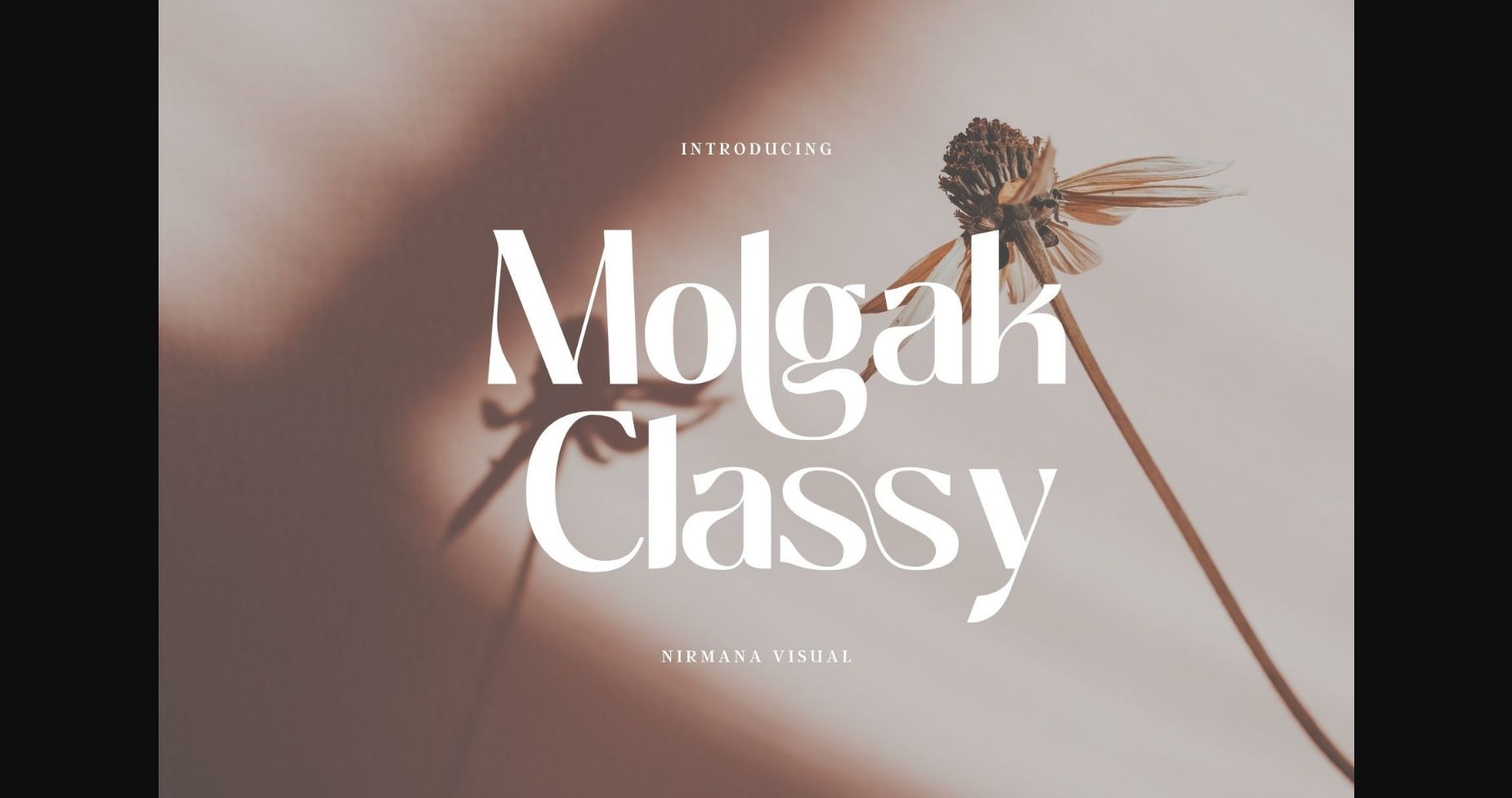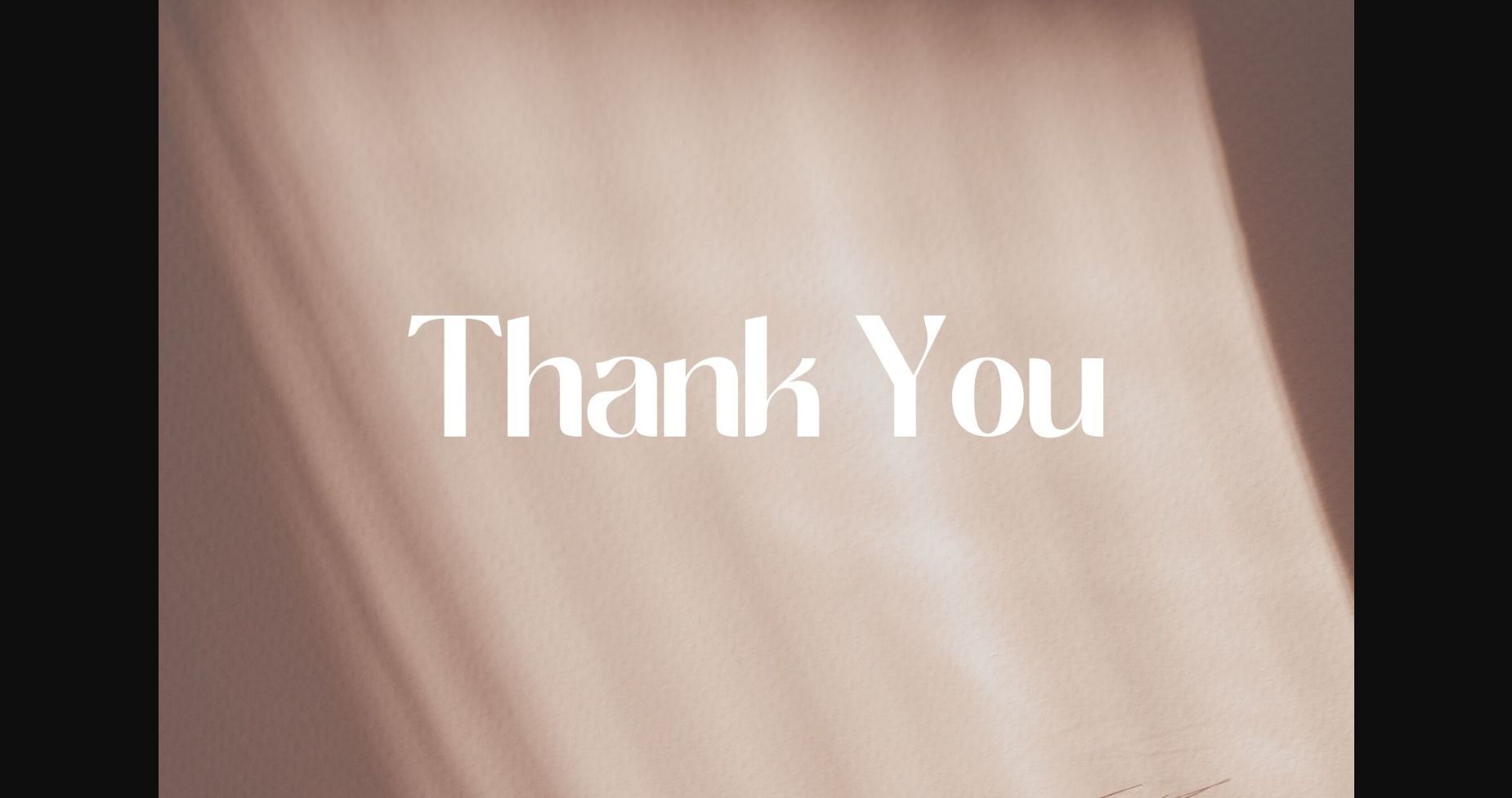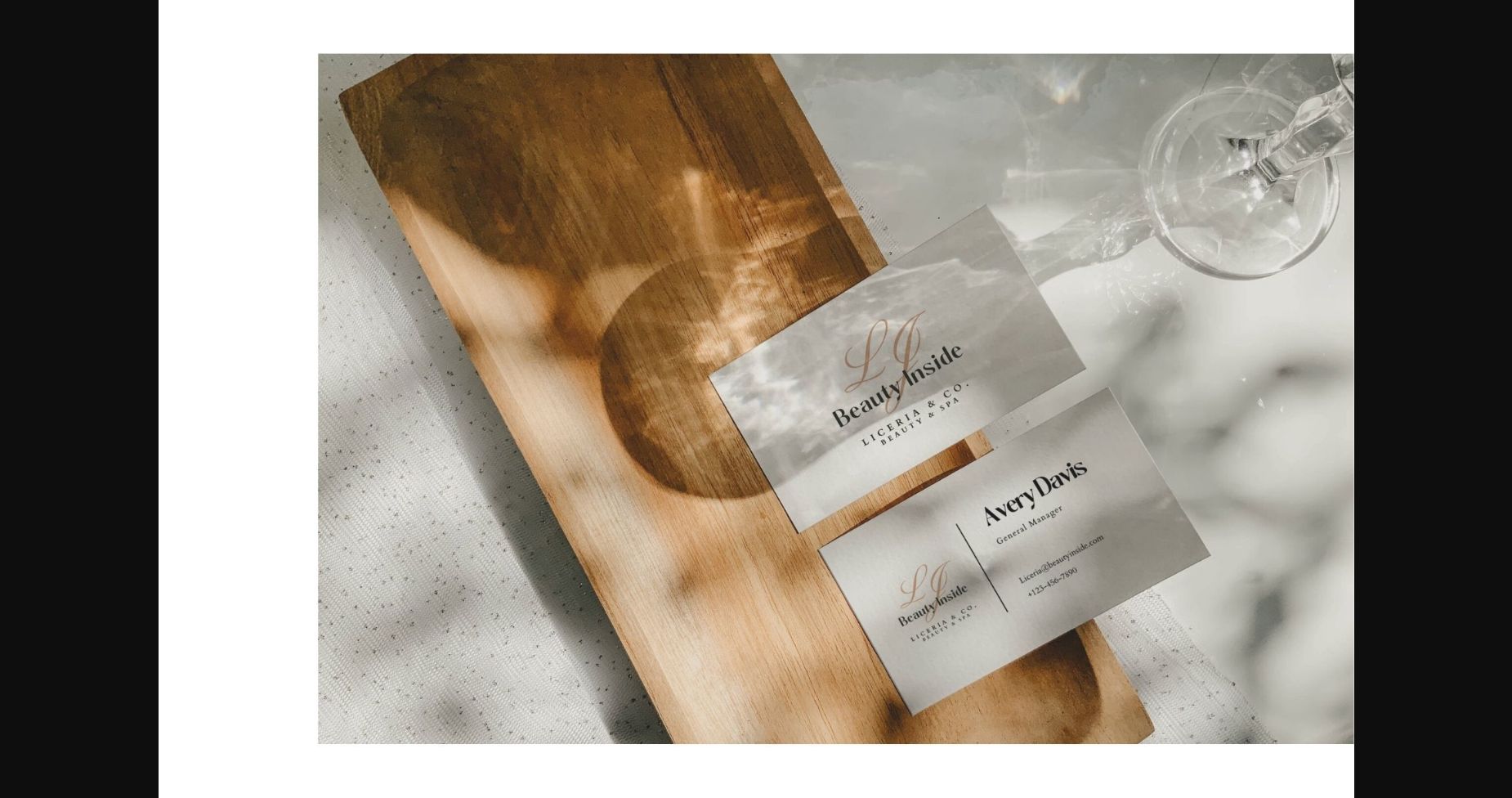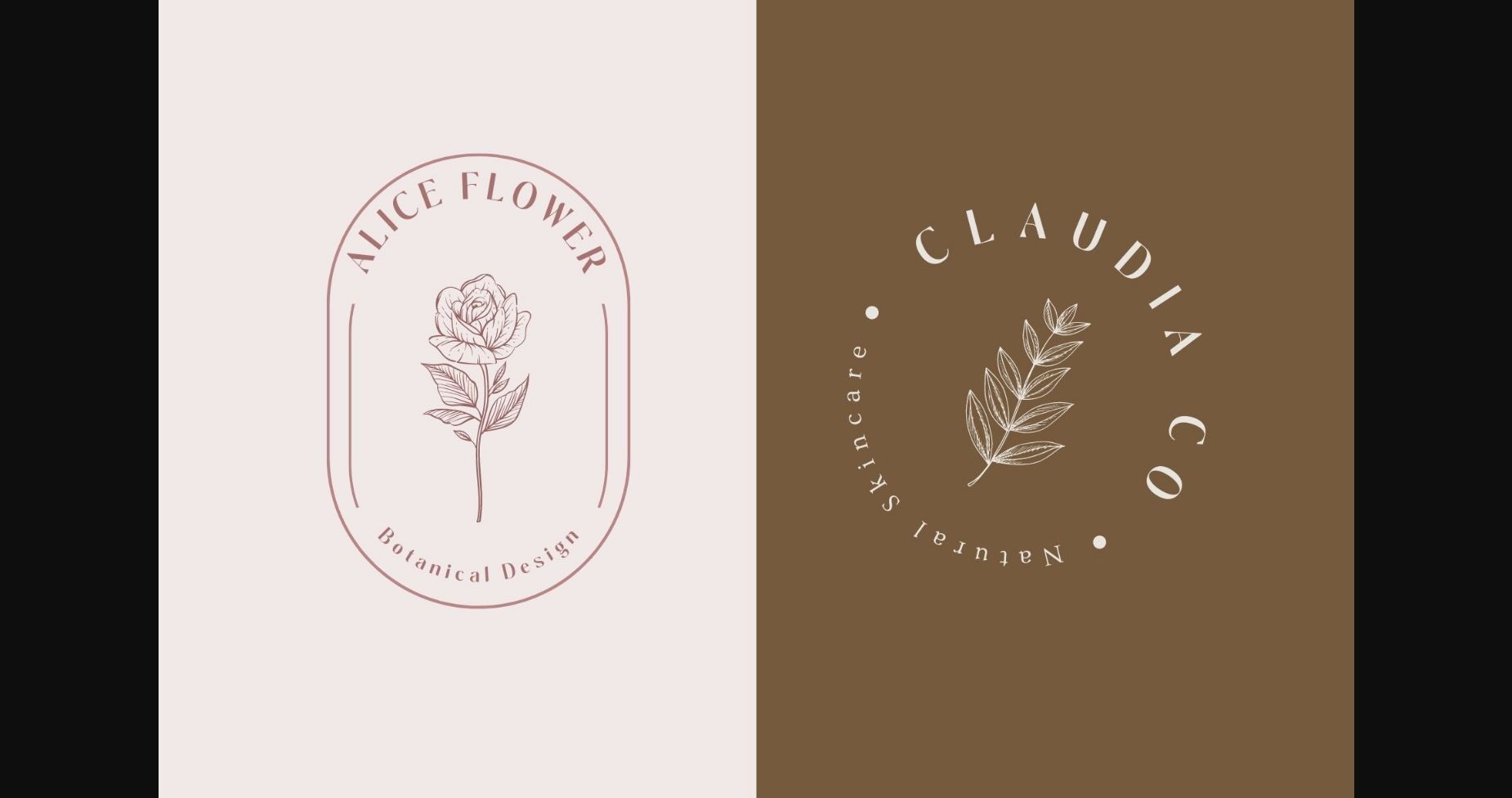
About Molgak Classy Font
Molgak Classy is an elegant and contemporary sans serif font.
Molgak Classy offers beautiful typographic harmony for a diversity of design projects, including logos & branding, social media posts, advertisements & product designs.